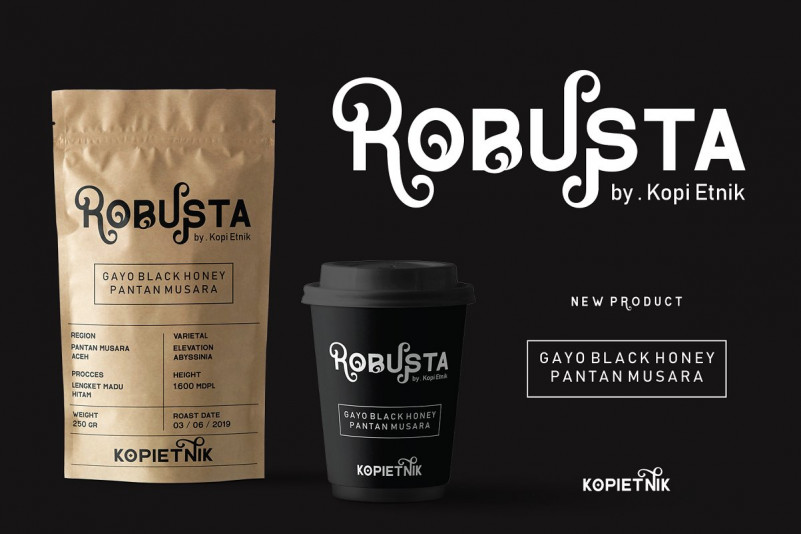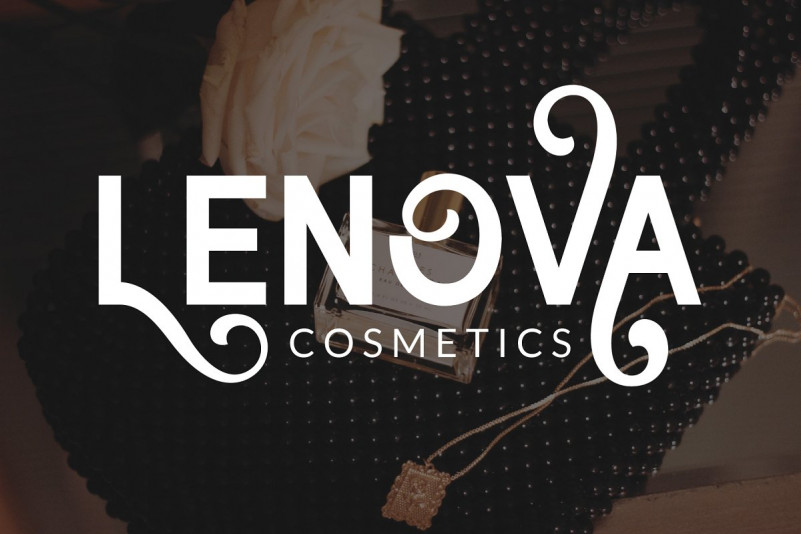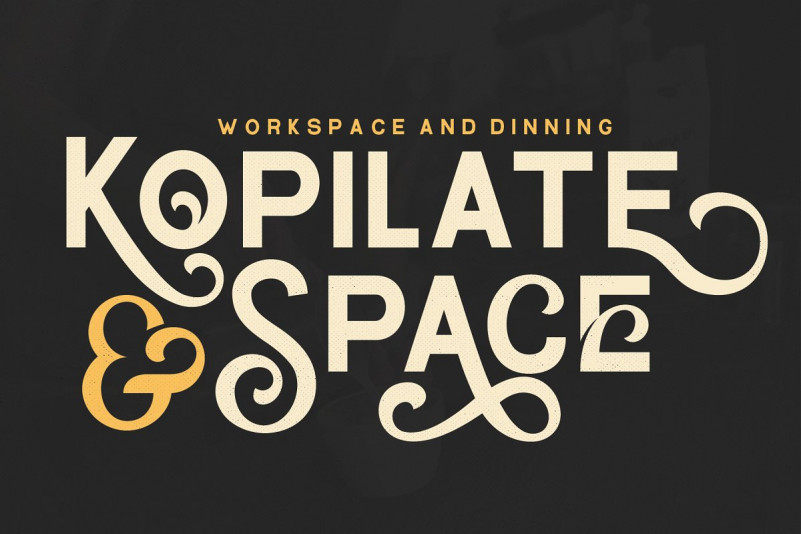
Basaro Display Font
Basaro Display Font – Free Demo
Basaro Font – It is a refreshing, clean, modern display font. This stylish and unique typeface will work for you in most contexts and will give your work that organic hand-drawn feel! It is designed and shared by Viaction Type.Co. Basaro Display Font is all caps display sans serif with many letter combinations according to creation. This font is inspired by an elegant & classic style with various swash. Equipped with Stylistic Set: ss01 – ss12, 12 alternatives per letter. Very easy to use and perfect for headlines, logos, posters, packaging, T-shirts, postcards and much more.